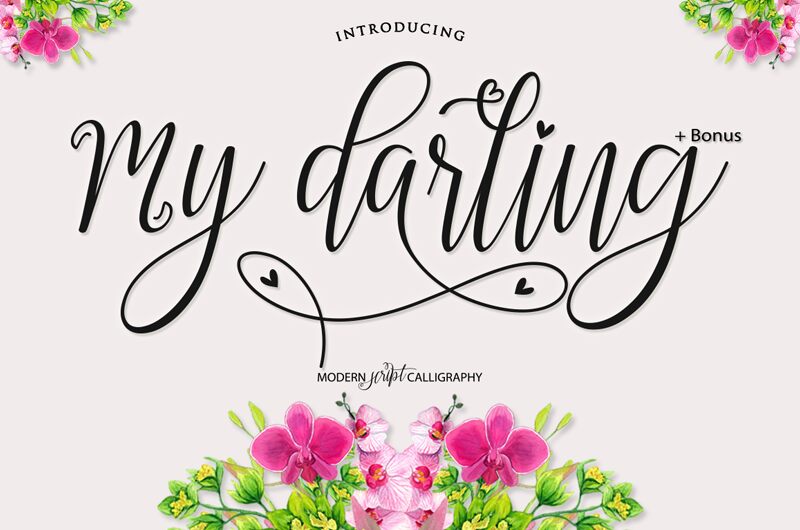
My Darling Script is a captivating calligraphic font that exudes elegance and sophistication. Crafted by Bexxtype, this condensed typeface seamlessly blends delicate flourishes with a touch of modern flair.
The fluid, organic strokes create a sense of graceful movement, making it an ideal choice for wedding invitations, greeting cards, and editorial layouts. Its versatility extends to branding, packaging, and even digital interfaces, where the font's distinct personality can elevate the overall aesthetic.
My Darling Script stands out as a remarkable typographic choice that harmoniously balances tradition and contemporary design sensibilities.